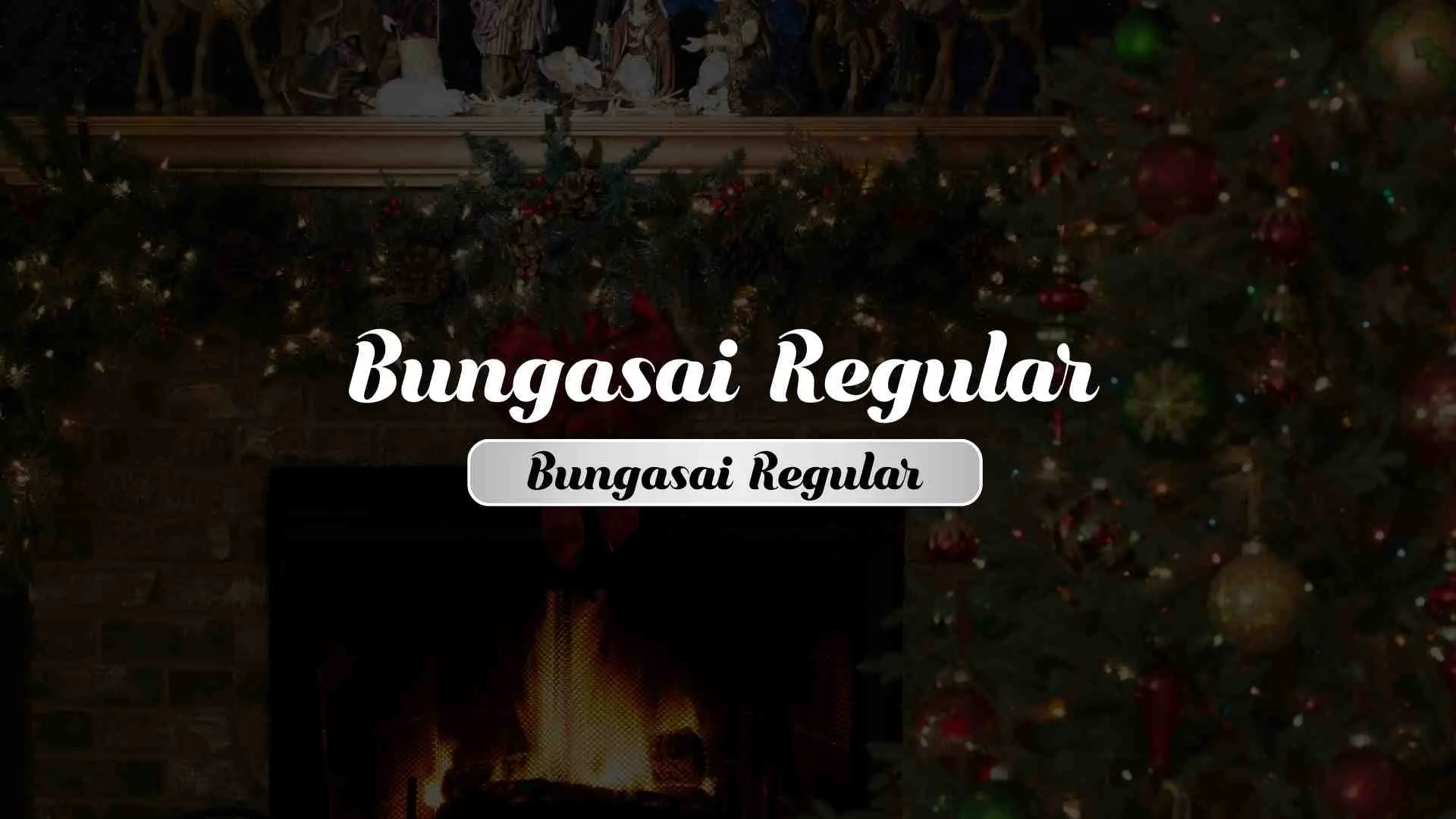
The font Bungasai Regular, designed by Adien Gunarta, falls under the Script category & Bungasai font family. Its smooth, flowing letterforms make it a versatile choice for projects that require both elegance and readability. Bungasai is particularly well-suited for Branding, Packaging, Wedding Invitations, Headlines, Titles, Social media graphics, Logos and Stationery. With its balance of simplicity and decorative appeal, this font brings a polished touch to both personal and professional designs.